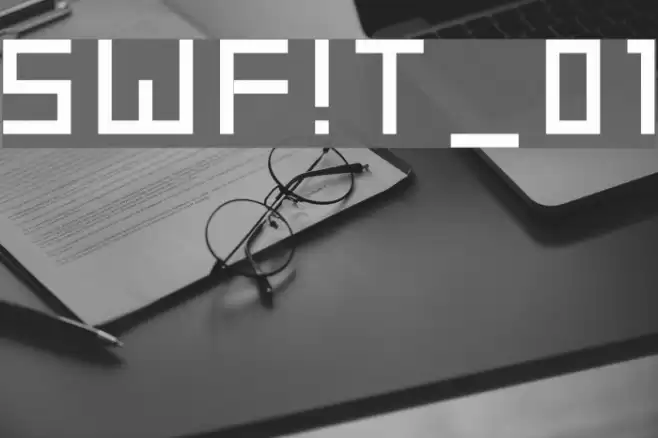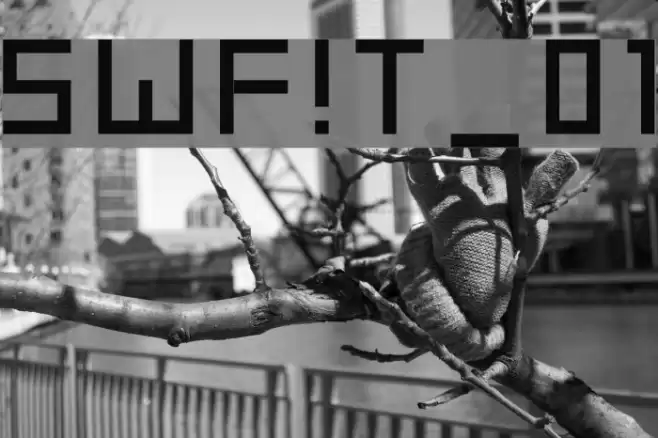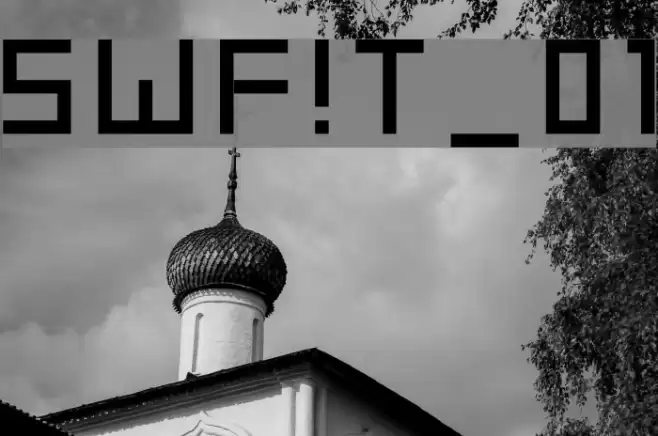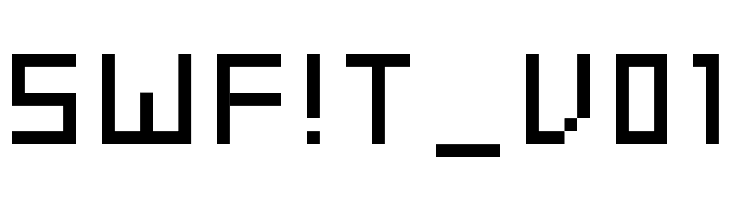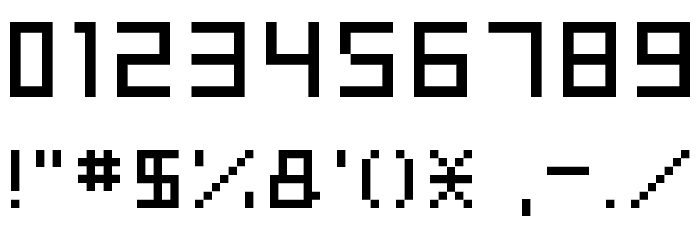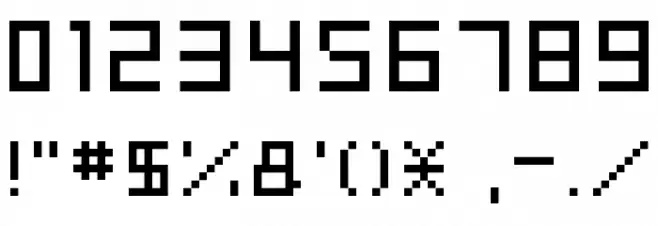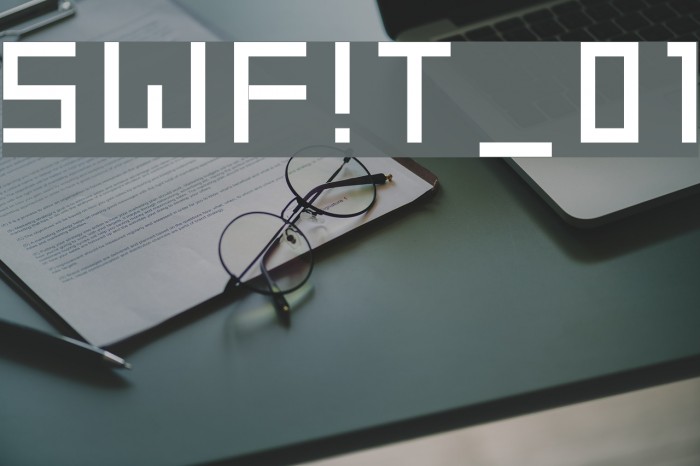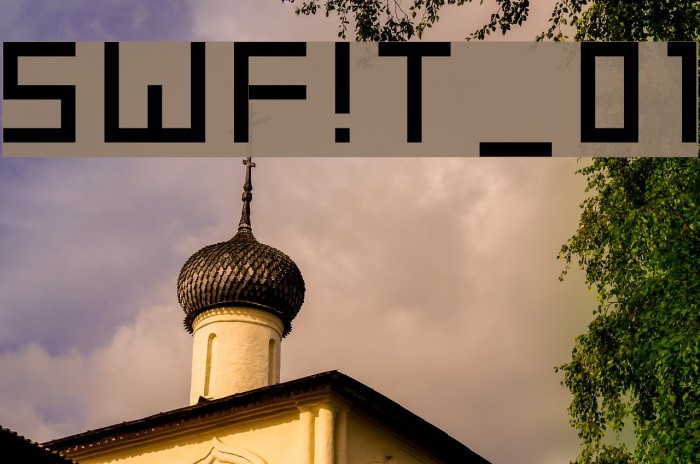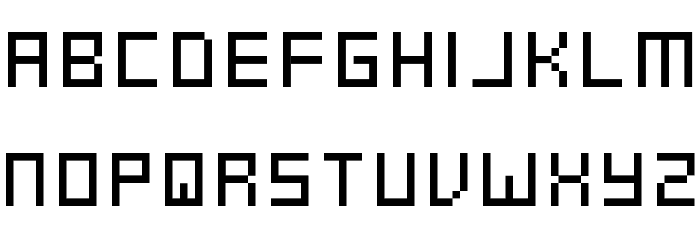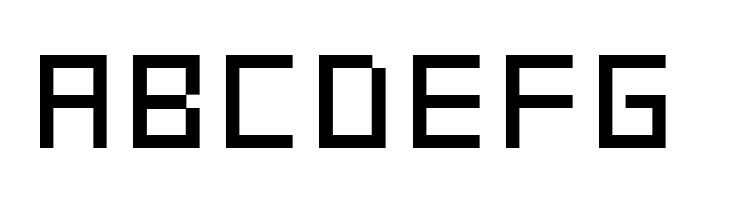
SWF!T_v01 Font
SWF!T_v01 Description
This font features a pixelated, grid-like structure reminiscent of early digital displays and retro video games. Each character is composed of uniform square blocks, creating a distinct, geometric appearance. The uppercase and lowercase letters maintain a consistent height, contributing to a monospaced feel. The numerals and special characters follow the same design principles, ensuring a cohesive look across all glyphs. This style is ideal for projects that aim to evoke nostalgia or a tech-oriented aesthetic. The font's simplicity and clarity make it suitable for digital interfaces, gaming environments, and any design that requires a vintage digital touch.
A pixelated, grid-based font with a retro digital aesthetic from Pixel fonts.
- Proposed Projects: Ideal for retro video games, digital interfaces, tech-themed designs, and nostalgic branding.
- Overall Style: Vintage
- Use Case: Headlines, Digital displays, Gaming interfaces